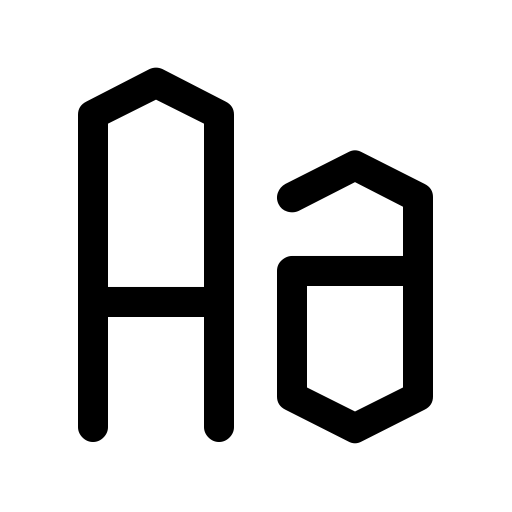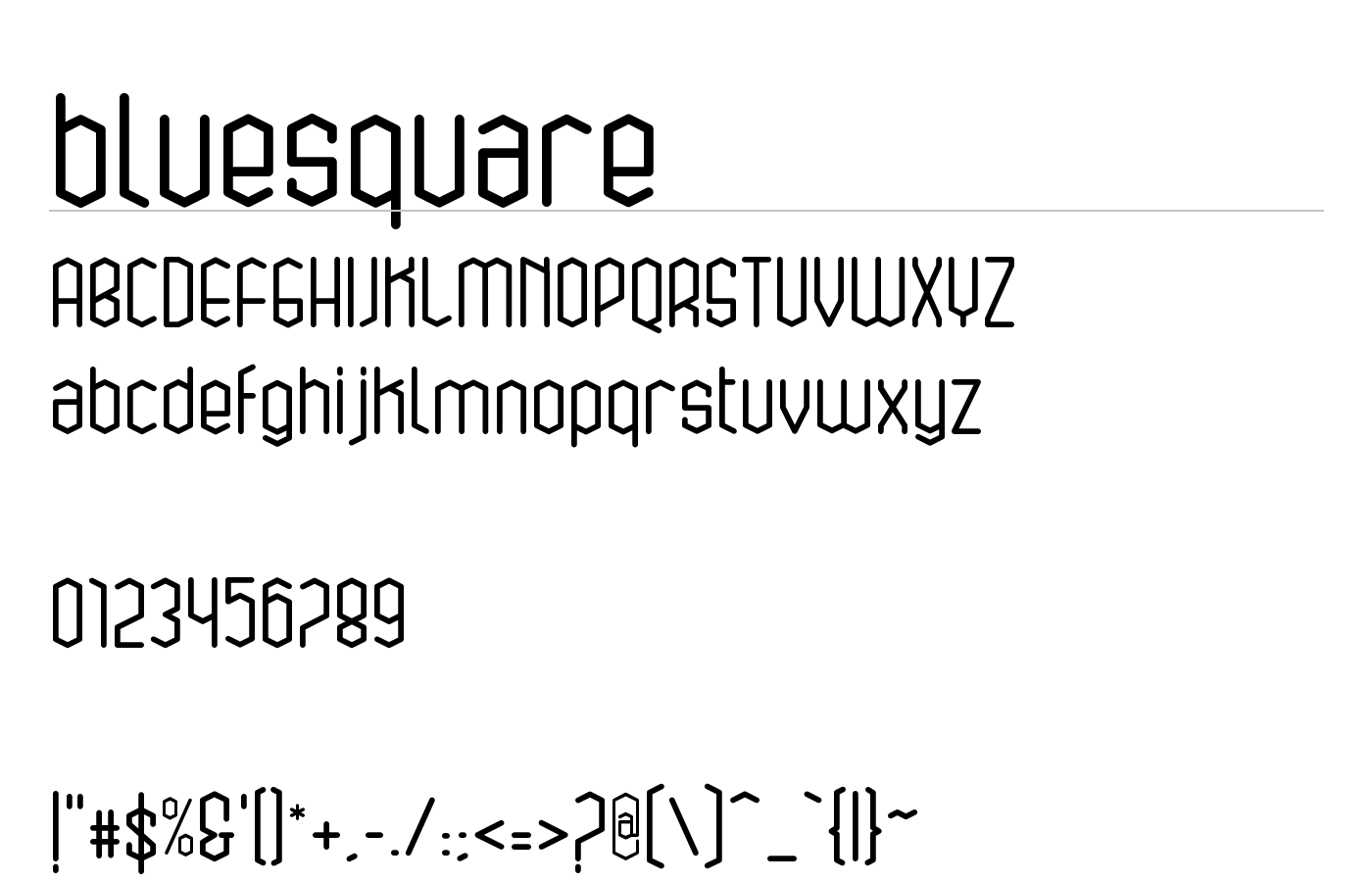
Bluesquare Font is a clean, geometric sans serif with a modern, technical feel, characterized by its narrow width and uniform stroke weight. Its angular, almost hexagonal letterforms give it a futuristic and minimalist personality, making it well-suited for tech branding, editorial headlines, and digital interfaces where clarity and a contemporary look are key. This font stands out in designs that require a distinctive, modern style with a touch of precision and structure.
bluesquare Font